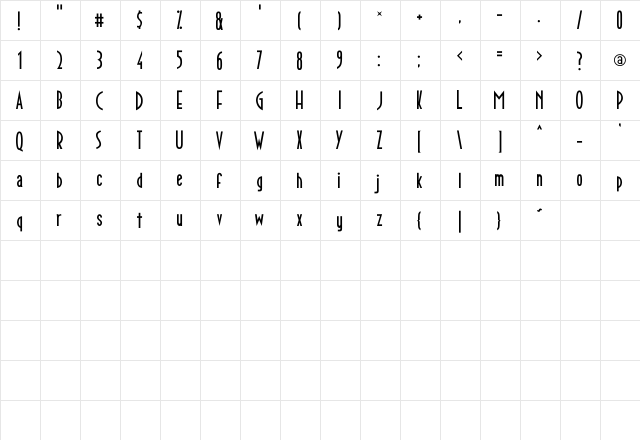
Globalhead Regular Font Preview
Globalhead Regular
Globalhead Regular Font Details
Design Context for Globalhead Typeface
Globalhead offers clean, dependable letterforms without strong stylistic allegiance, making it a practical choice for designers who need flexibility.